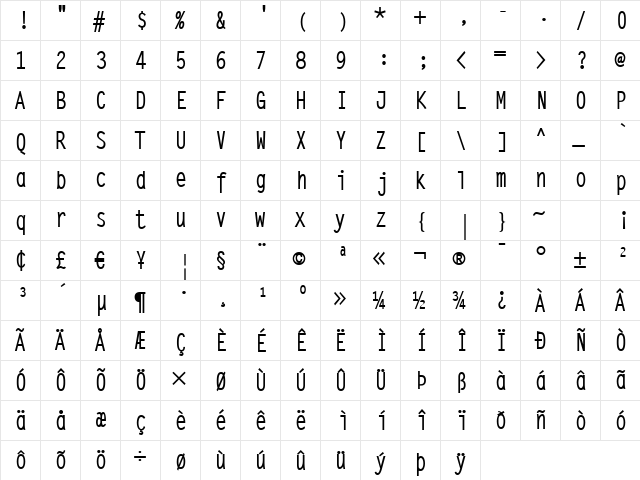
SteepTypewriterMedium Regular
Design Context for SteepTypewriterMedium Typeface
SteepTypewriterMedium brings the precise, column-aligned rhythm of monospaced typography to designs that value technical clarity and systematic order.